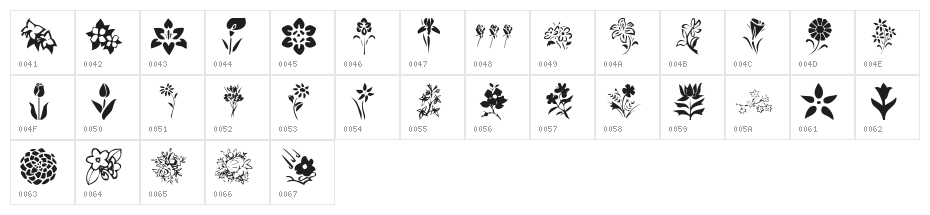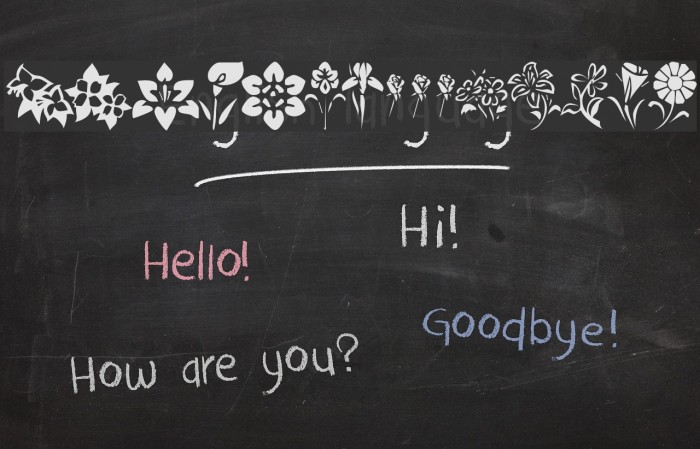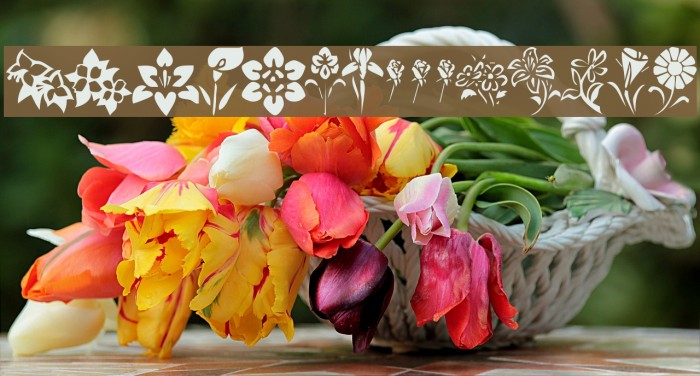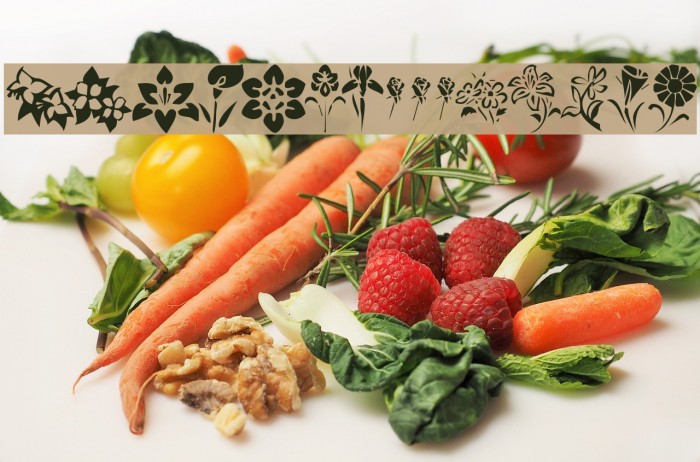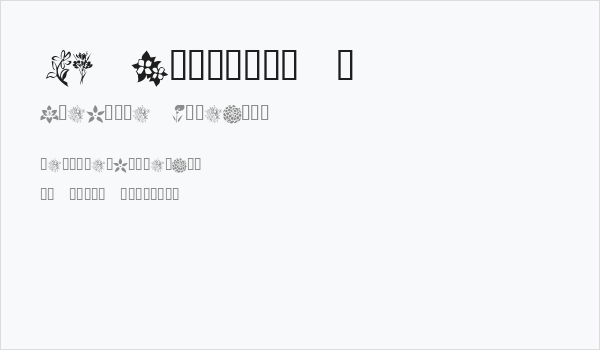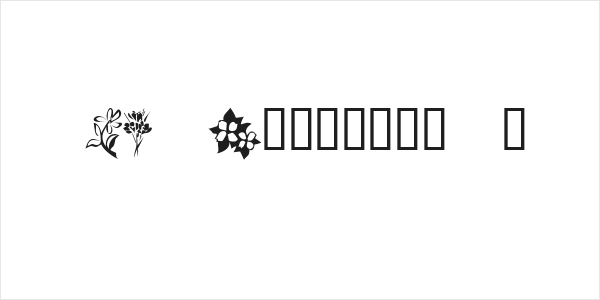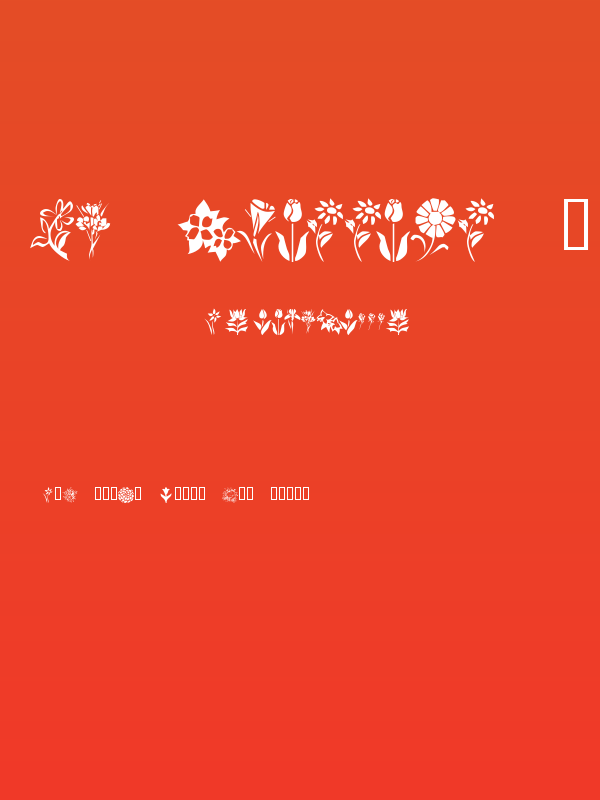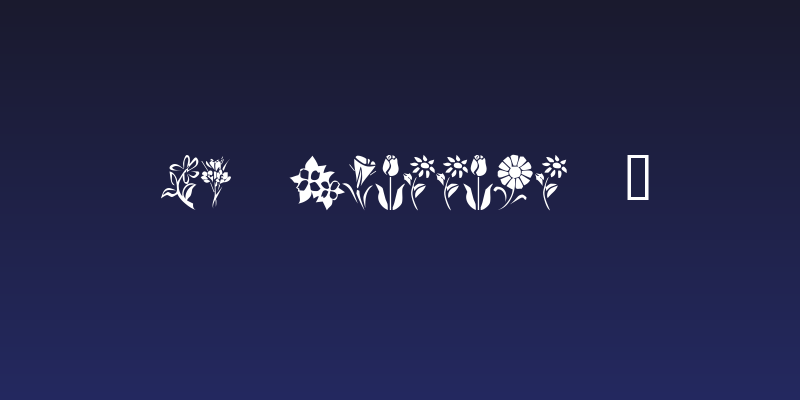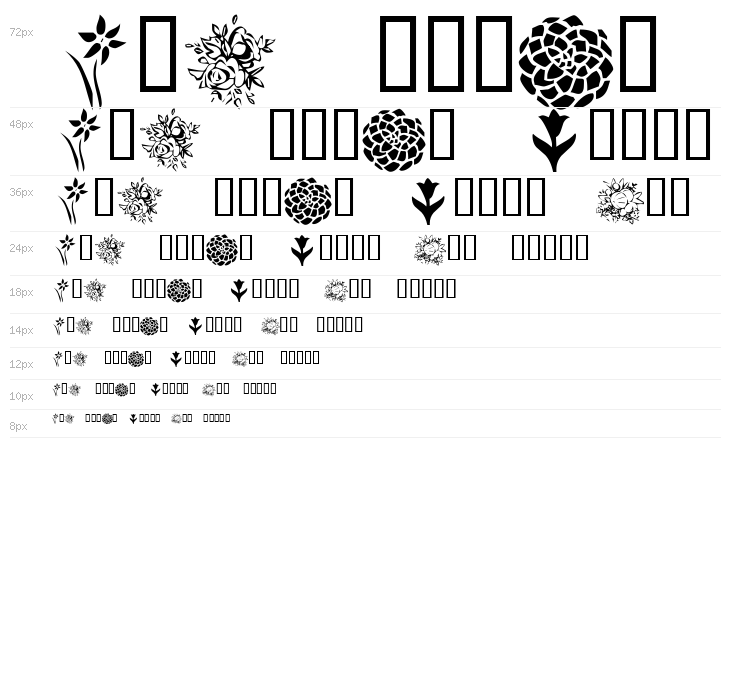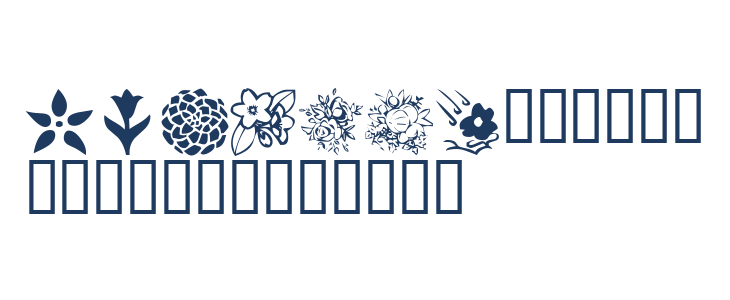
KR Blossoms 1 Font
KR Blossoms 1 Description
A decorative collection of floral and botanical glyphs, featuring a variety of stylized flowers, leaves, and plant motifs in solid black silhouettes and outlined forms. The designs range from simple, bold shapes to more intricate, detailed arrangements, suitable for ornamental use.
| Overall Style | Decorative, Ornamental |
| Use Case | Decorative elements, embellishments, icons, borders. |
| Proposed Projects | Greeting cards, invitations, scrapbooking, decorative borders, digital stickers, craft projects, textile patterns. |